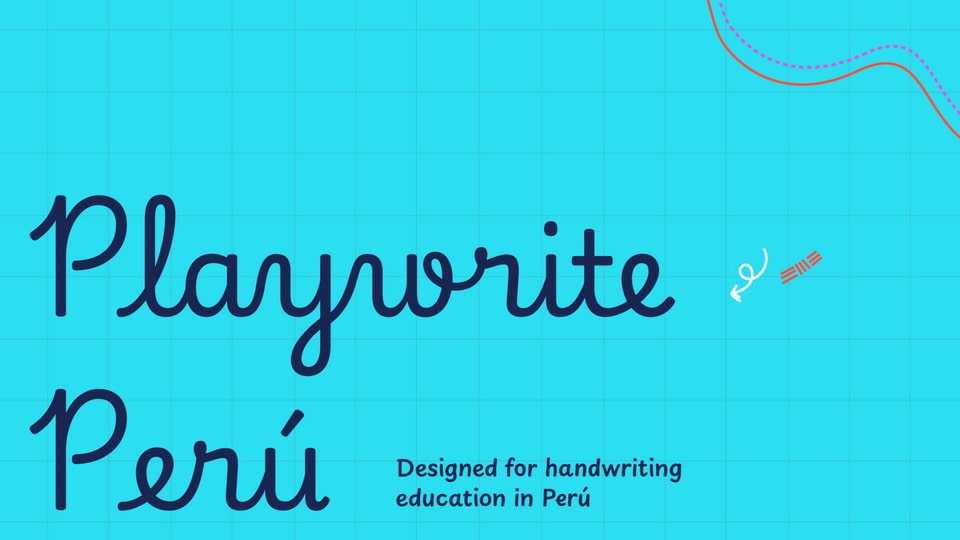
Download Playwrite Perú font, a typeface that allows the creation of primary school cursive fonts. This upright continuous cursive handwriting model features medium-length ascenders and descenders.
Designer: TypeTogether